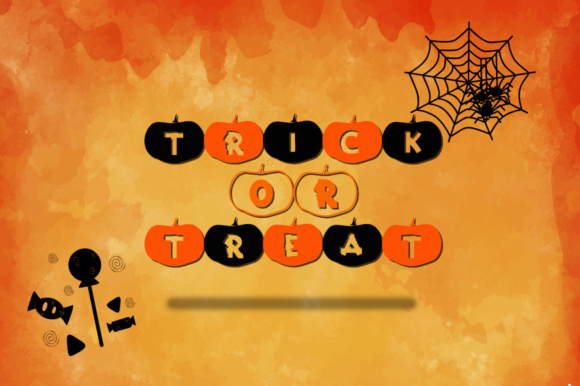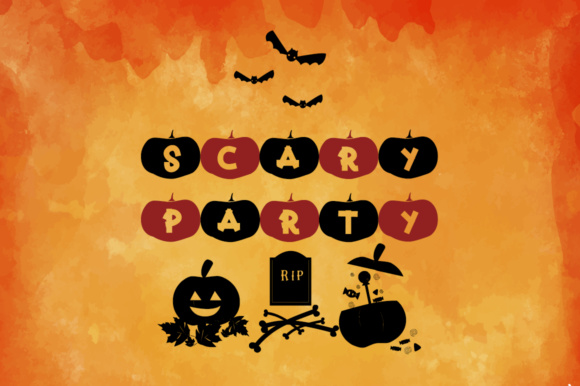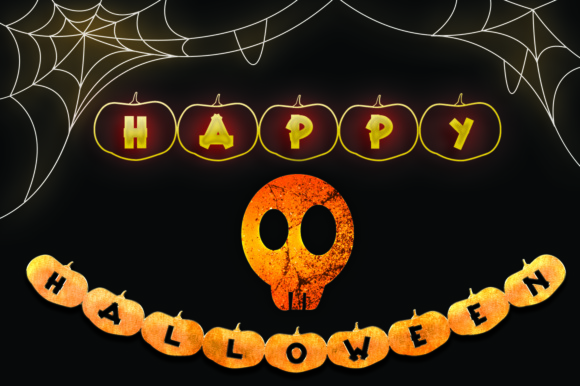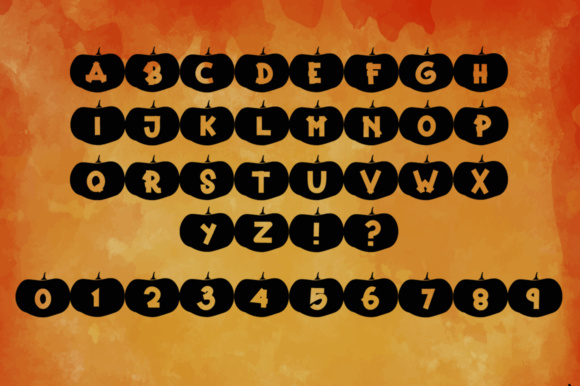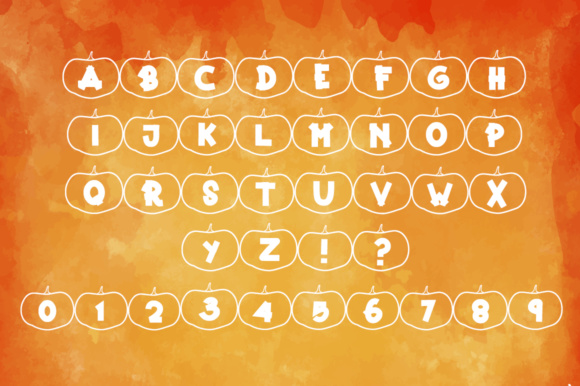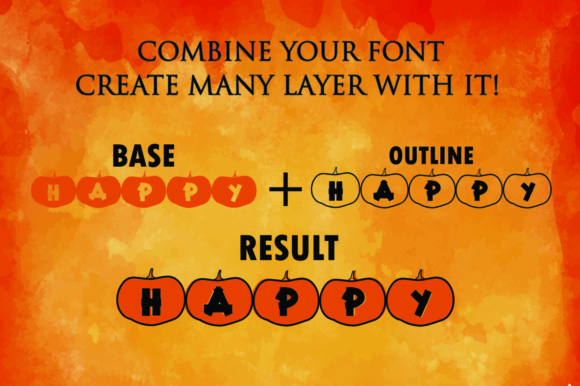
Introducing Happy Pumpkins Font: The Ultimate Decorative Font for Your Fall Projects
Are you looking for a unique and festive font to add a touch of autumnal charm to your designs? Look no further than Happy Pumpkins Font! This delightful decorative font features fancy pumpkin shapes that are sure to bring a smile to your customers’ faces. In this article, we’ll take a closer look at Happy Pumpkins Font, its features, and how you can use it to create stunning designs for the fall season.
What is Happy Pumpkins Font?
Happy Pumpkins Font is a one-of-a-kind decorative font that showcases whimsical pumpkin shapes. This font is perfect for designers and crafters who want to add a playful touch to their projects. Whether you’re creating posters, display banners, invitation cards, or merchandise, Happy Pumpkins Font is sure to make your designs stand out.
Key Features of Happy Pumpkins Font
- Unique Pumpkin Shapes: Happy Pumpkins Font features fancy pumpkin shapes that are sure to delight your audience.
- Decorative Style: This font has a decorative style that’s perfect for creating eye-catching designs.
- Versatile: Happy Pumpkins Font works great on various design materials, including posters, display banners, invitation cards, merchandise, and more.
- Easily Customizable: You can easily customize the font to fit your design needs.
How to Use Happy Pumpkins Font in Your Designs
Happy Pumpkins Font is incredibly versatile and can be used in a variety of design projects. Here are some ideas to get you started:
1. Posters and Flyers
Create eye-catching posters and flyers for fall events, such as harvest festivals, pumpkin patches, or Halloween parties. Use Happy Pumpkins Font to add a playful touch to your designs.
2. Display Banners
Design stunning display banners for your website, social media, or in-store promotions. Happy Pumpkins Font is perfect for creating banners that showcase your brand’s personality.
3. Invitation Cards
Add a touch of autumnal charm to your invitation cards for fall events, such as Thanksgiving dinner invitations or Halloween party invites.
4. Merchandise
Use Happy Pumpkins Font to create adorable merchandise, such as t-shirts, mugs, or tote bags, that feature pumpkin designs.
Tips for Getting the Most Out of Happy Pumpkins Font
Here are some tips to help you get the most out of Happy Pumpkins Font:
- Experiment with Colors: Try out different color combinations to find the perfect palette for your design.
- Play with Font Sizes: Experiment with different font sizes to create visual interest in your design.
- Add Graphics: Combine Happy Pumpkins Font with graphics, such as illustrations or photos, to create a unique design.
Happy Pumpkins Font is a unique and festive decorative font that’s perfect for adding a touch of autumnal charm to your designs. With its fancy pumpkin shapes and versatile design, this font is sure to delight your audience. Whether you’re a designer or crafter, Happy Pumpkins Font is a must-have font for your fall projects. So why wait? Get creative with Happy Pumpkins Font today and make your designs stand out!